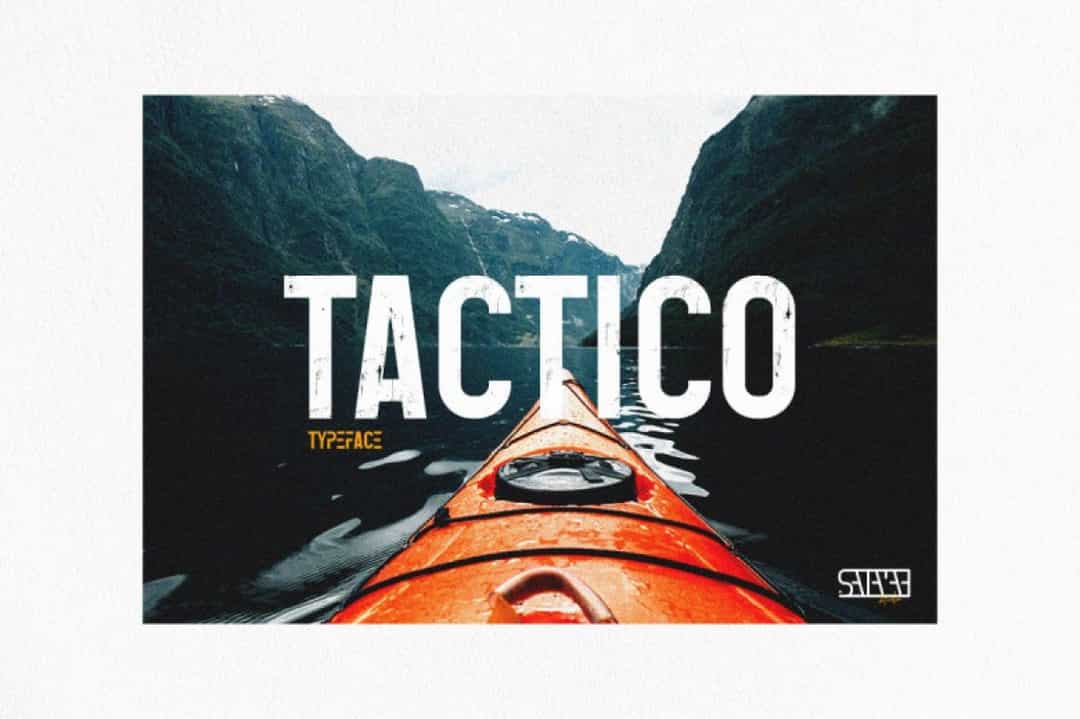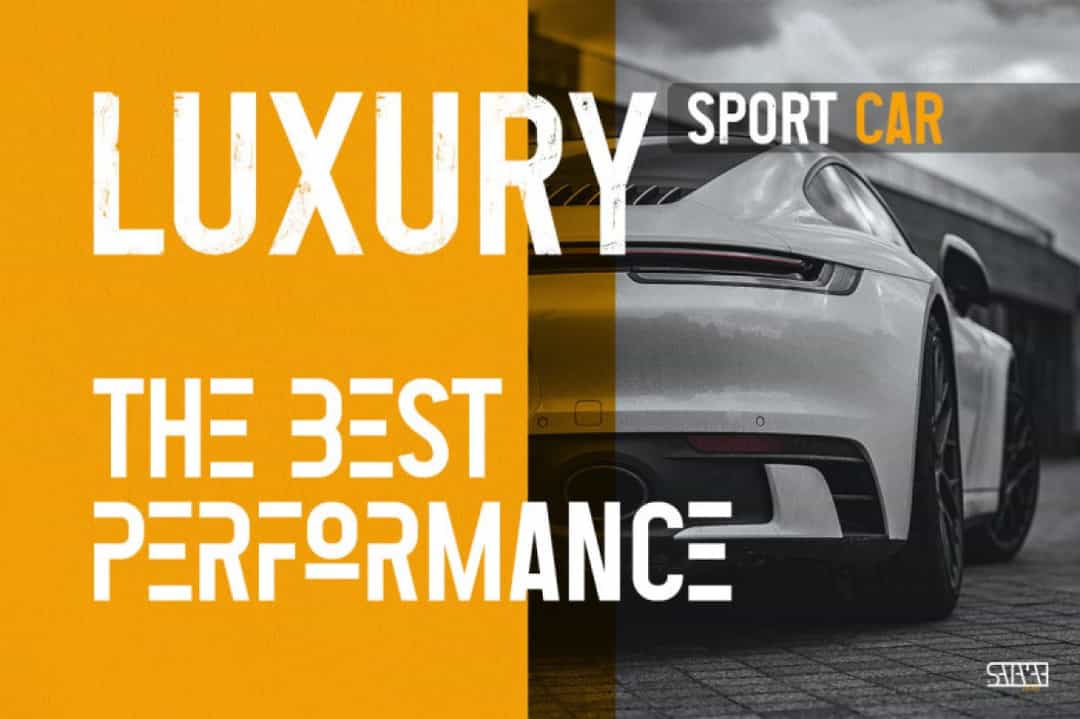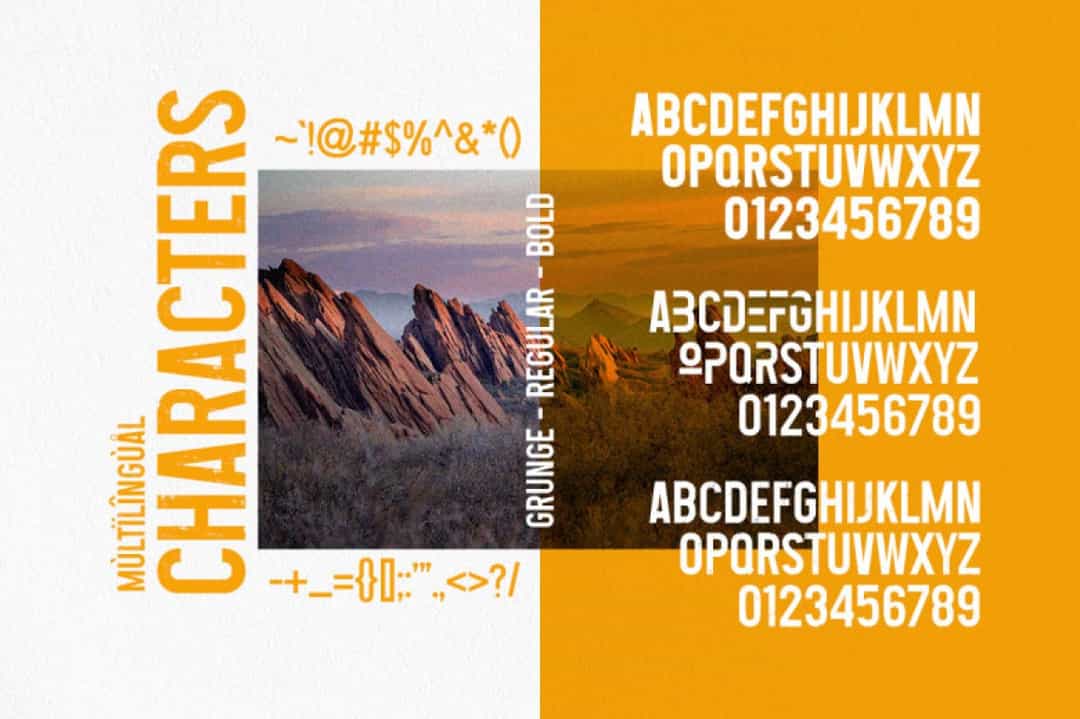
Discover Tactico Font, part of the Sans Serif Display collection—a versatile and unique font perfect for adding a personal touch to your projects. Download it for free and enjoy crafting designs with style, from invitations to social media posts. This font is available exclusively for personal use, giving you the freedom to create without limits. Unlock your creativity with Tactico Font today!
The Tactico Display font is an eye-catching brush and Sans serif font, designed to look gorgeous when printed onto posters, flyers or other prints. Make use of this font in your designs to explore its many possibilities and use it in posters, affiches and logos or even T-shirt and magazine print attractive typographic designs, among other possibilities.